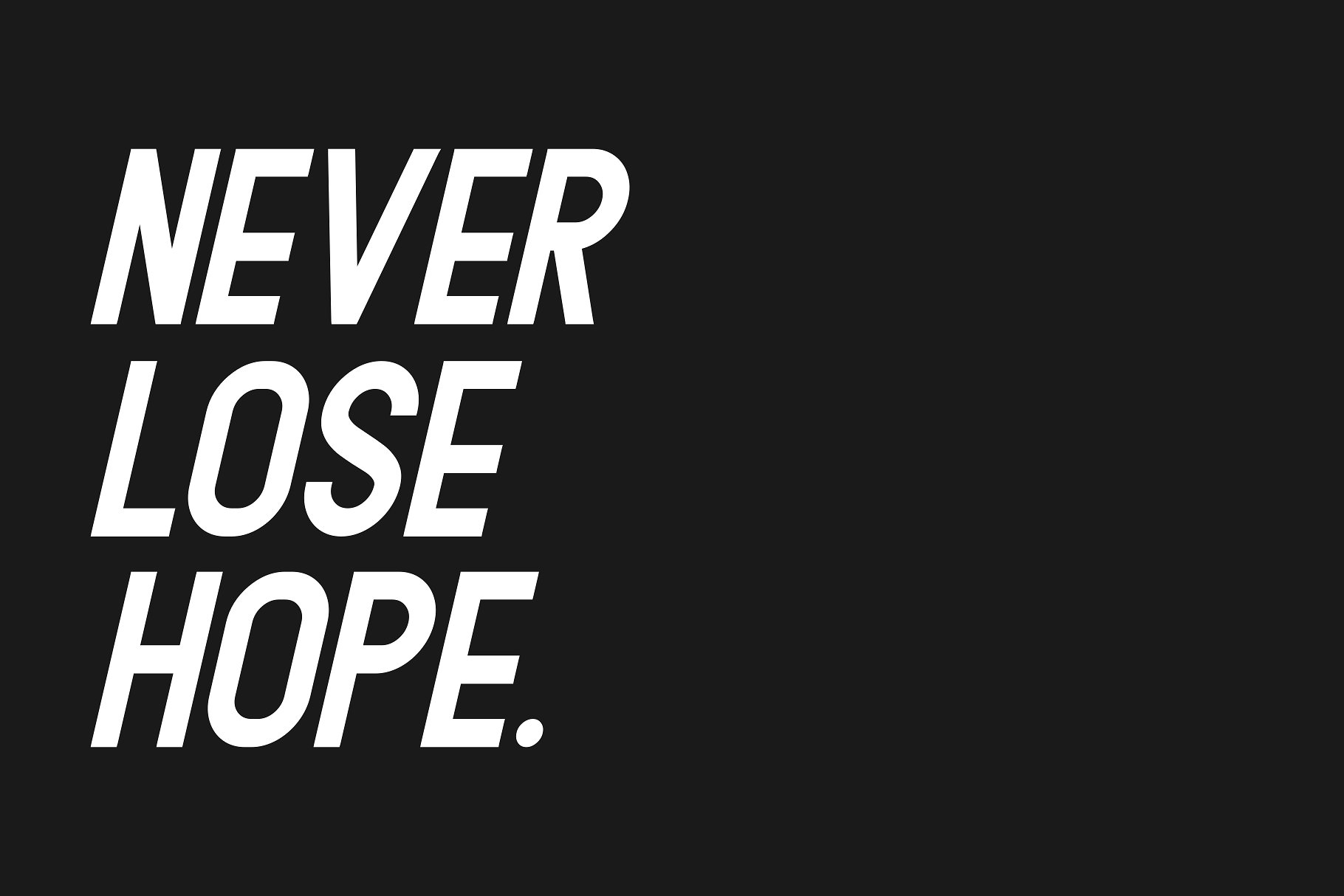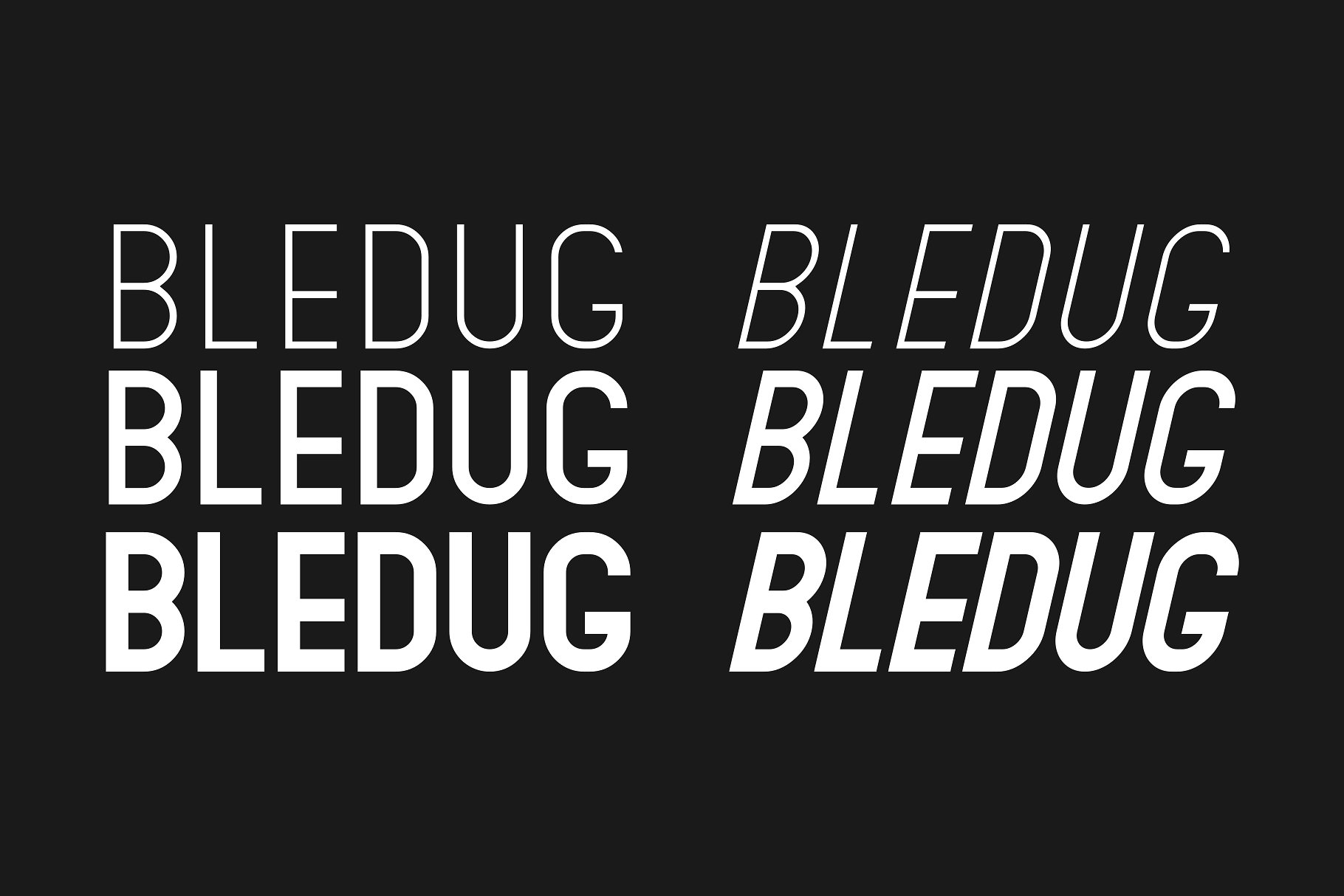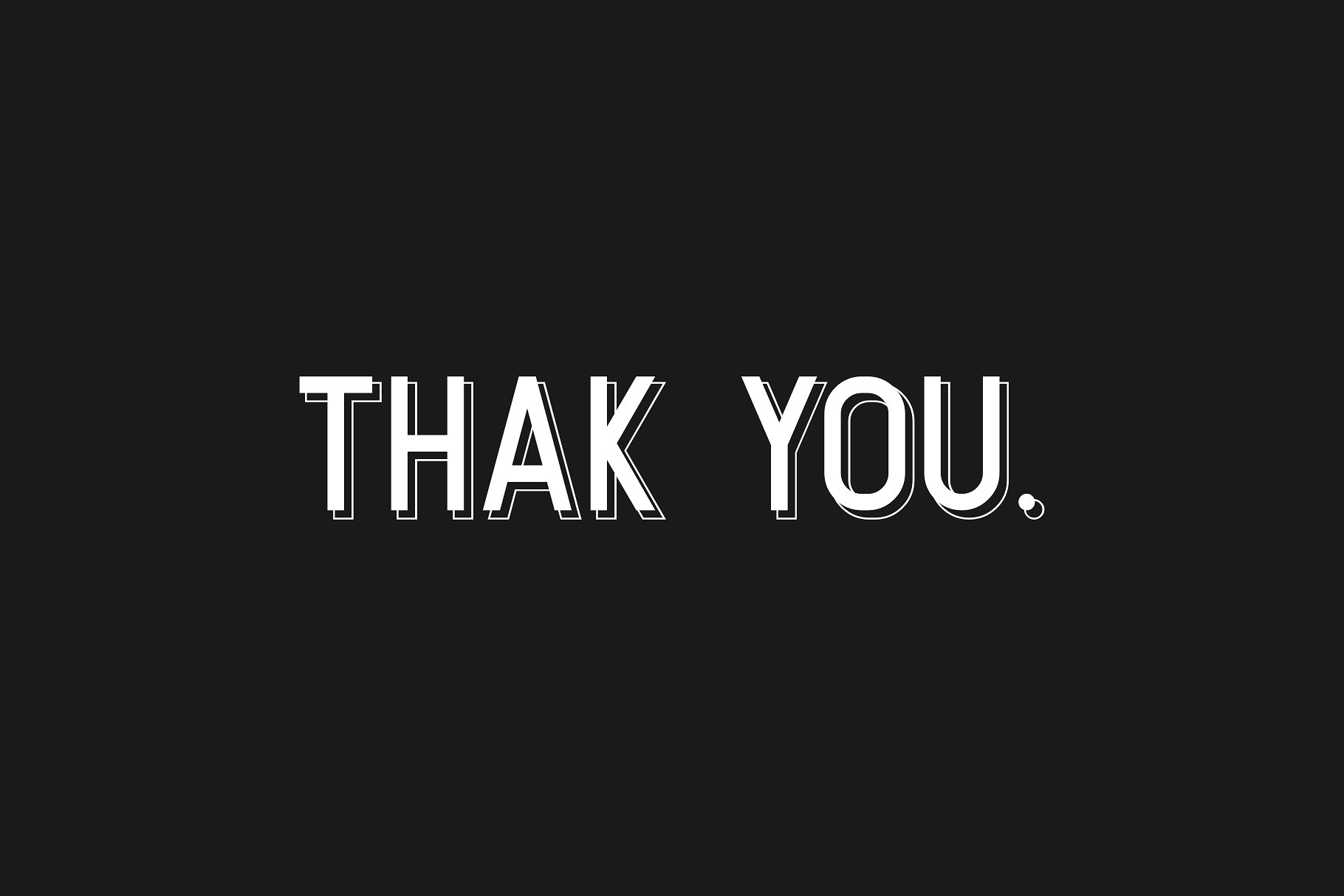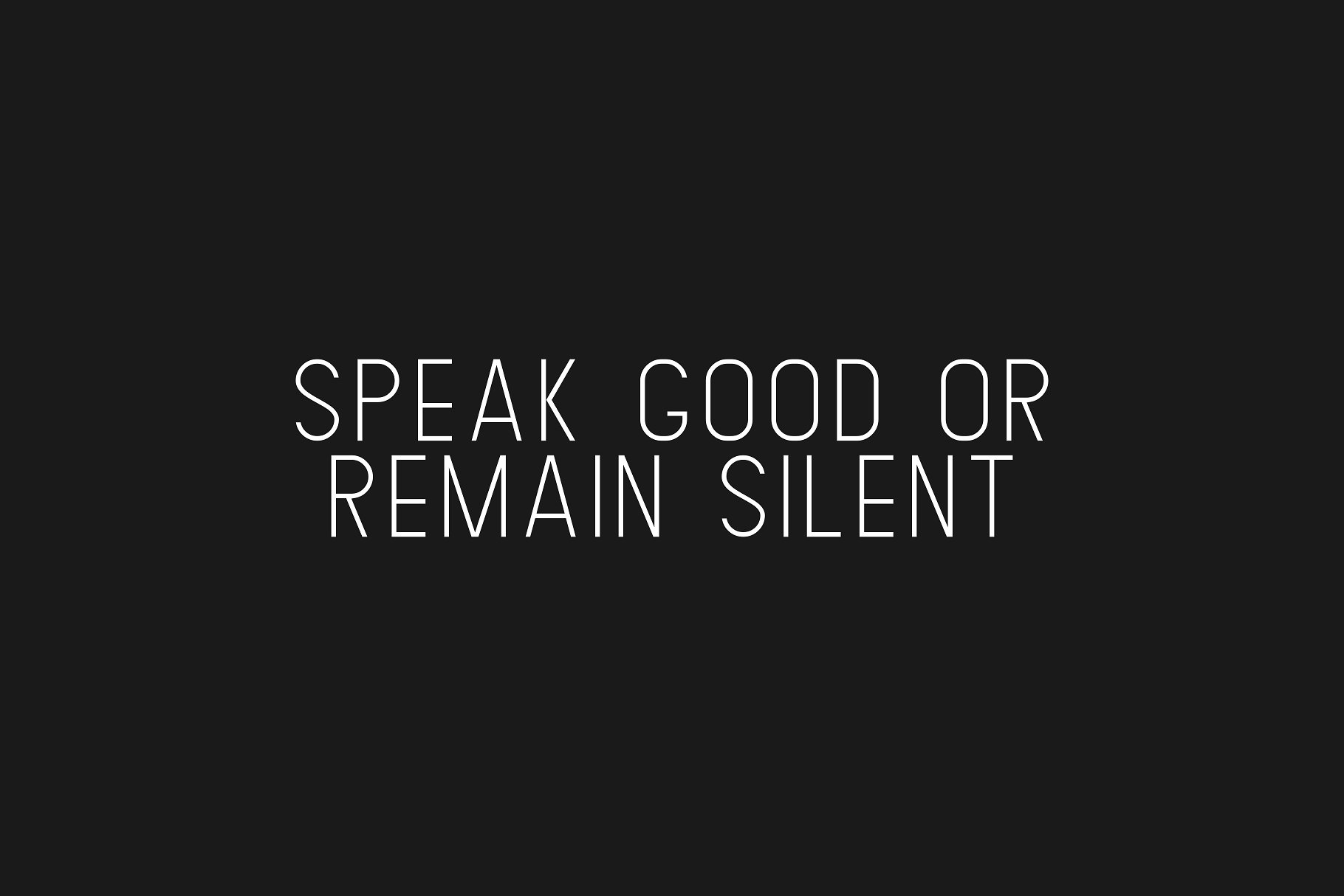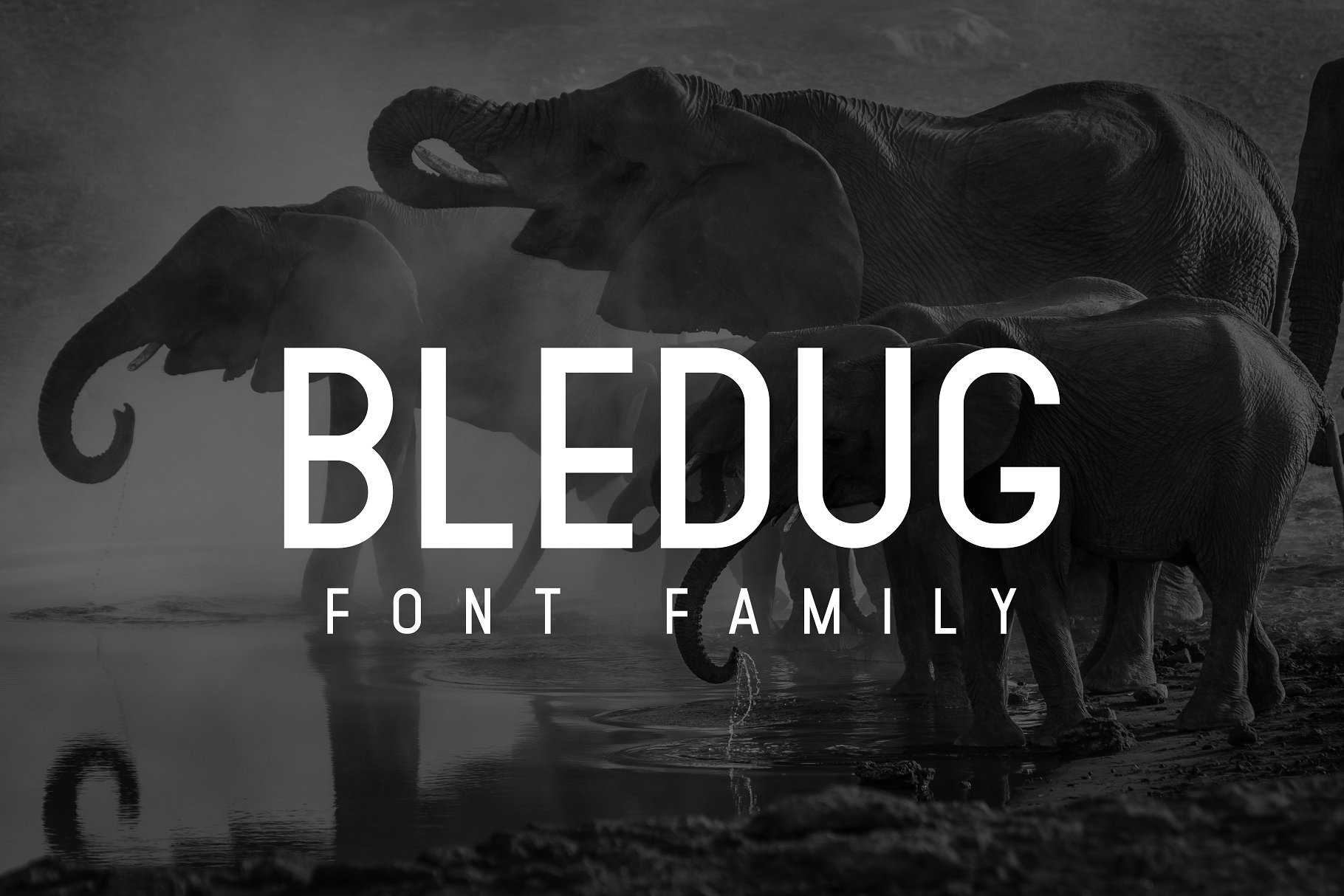
Bledug Font Family
Bledug Font Family – Free Demo
Bledug Typeface is a hugely versatile sans serif design to provide a very clear and modern appearance. Bledug is all caps sans serif font family. It comes in 8 styles, three weights, three italic, outline, and wireframe. Bledug is perfectly suited to headlines, branding visual identity, poster, logo, magazines and etc.